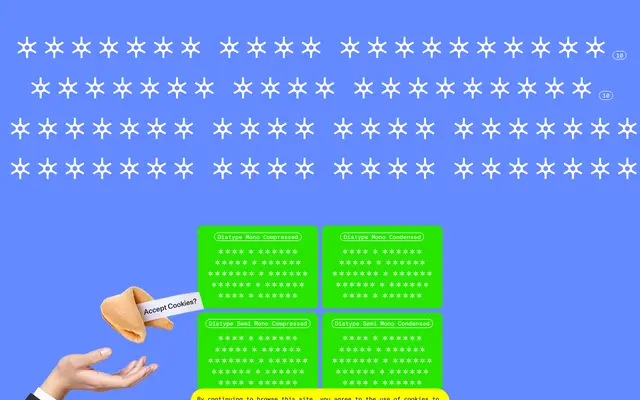
Diatype Extra
Dinamo Typefaces · Johannes Breyer, Fabian Harb, Elias Hanzer, Erkin Karamemet, Renan Rosatti, Andree Paat
An extended family of monospaced and semi-monospaced compressed and condensed cuts grown from Dinamo's Diatype grotesque, designed for screen reading.
Diatype Extra expands the Diatype system into four tightly drawn subfamilies: Mono Compressed, Mono Condensed, Semi Mono Compressed and Semi Mono Condensed. Each runs across five weights from Thin to Bold with matching italics, and variable font versions are available. The parent typeface draws its character from pre-digital diatype typesetting machines and the Swiss Neo-grotesque tradition, giving these compressed cuts warmth alongside their technical precision.
Diatype Extra comprises monospaced and semi-monospaced compressed and condensed subfamilies derived from the Diatype grotesque, placing it firmly in the monospaced grotesque category with strong Swiss Neo-grotesque roots.